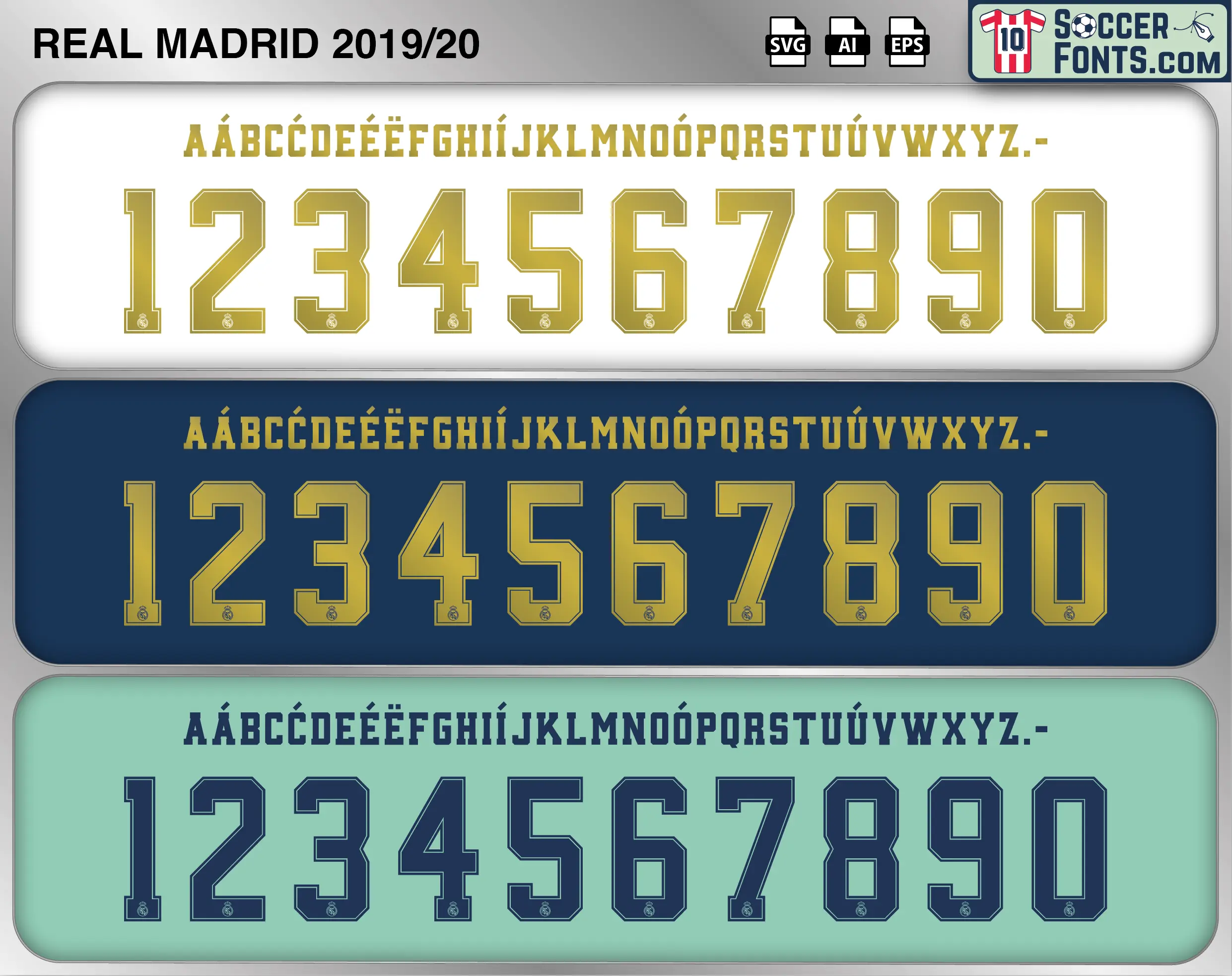
Real Madrid 2019-20 Font
The Real Madrid 2019-20 font is an editable soccer jersey lettering design in vector format inspired by the Real Madrid kit style used during the 2019-20 football season. This football font artwork is prepared for football shirt recreations, custom jersey projects, football kit mockups and sports graphic design workflows.
The Real Madrid 2019-20 font became associated with the club’s 34th La Liga championship and the successful conclusion of Zidane’s second managerial project. Rather than relying solely on attacking brilliance, Real Madrid demonstrated resilience, tactical discipline and defensive excellence throughout the campaign. Real Madrid shirts from this season remain highly collectible because of their connection with a unique football season played under extraordinary circumstances and the emergence of Valverde as a key first-team player. The Real Madrid 2019-20 font reflects a period of adaptation, leadership and championship-winning consistency, capturing a squad that successfully restored domestic dominance while preparing for another era of European competition.